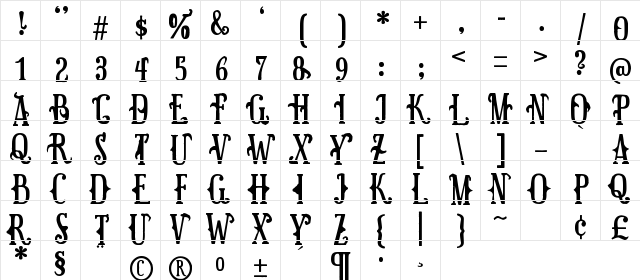
Surpal Lovely Regular
Surpal Lovely is a composed and adaptable typeface that performs quietly and consistently across a wide range of design contexts.